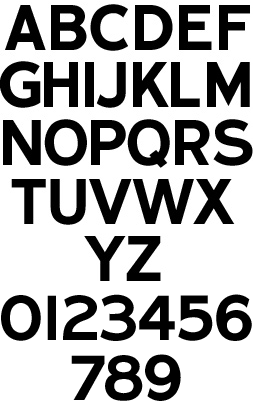
LHF Garner used for phone, address and names.
Authentic hand-lettering circa 1950's. Is it a font or hand-lettered? This old sign painter's gothic from Duncan Wilkie would fool even a trained eye. A must have for subcopy on period pieces where Helvetica or other sans serif styles are too modern. 3 fonts included.
LHF Garner Regular
LHF Garner Bold
LHF Garner Light